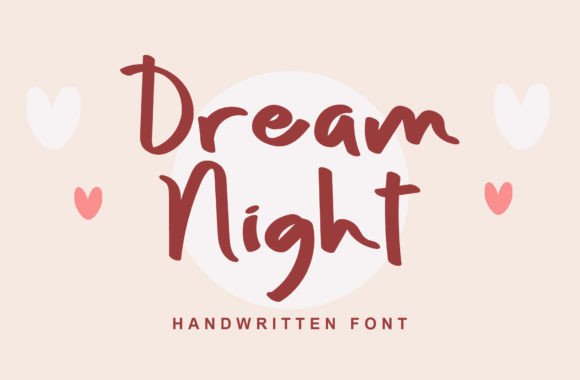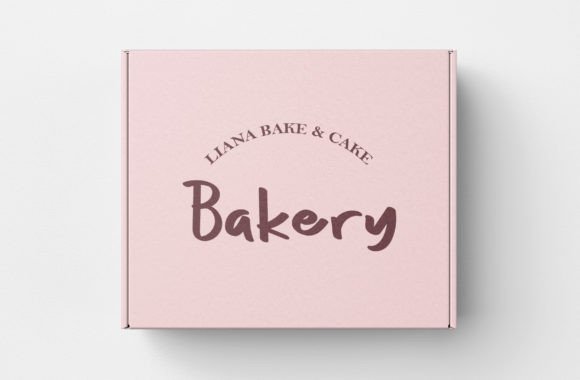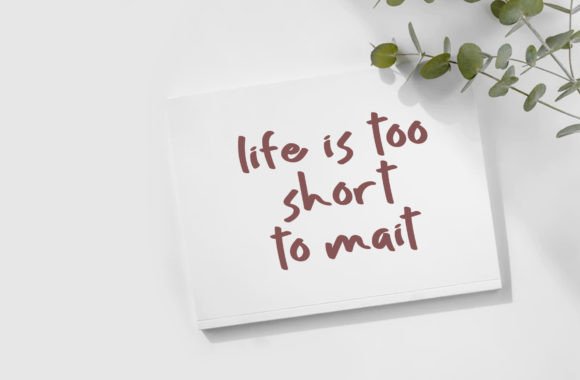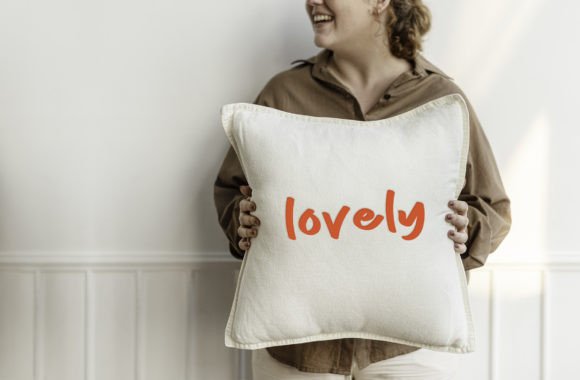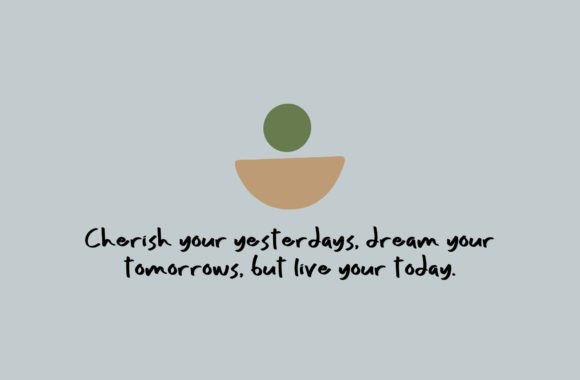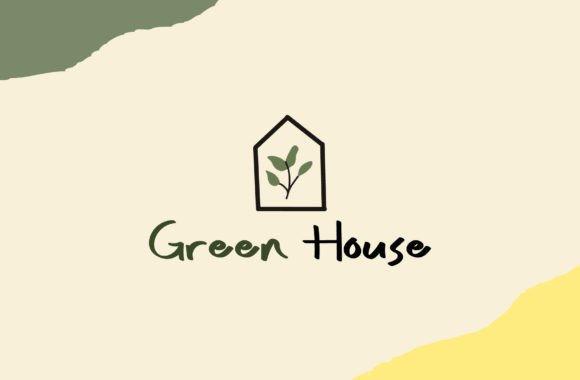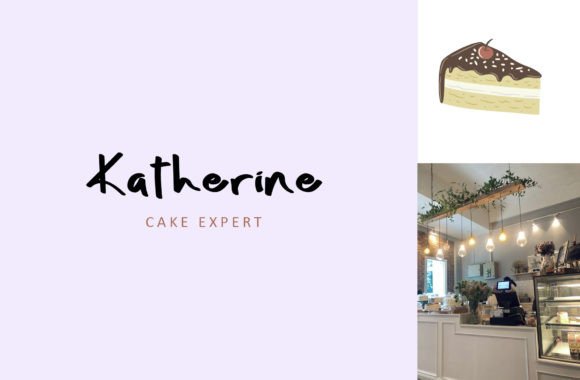
Dream Night Font
About Dream Night Font
Dream Night font offers a sleek and modern script style, designed with precision to make every letter shine beautifully. This elegant font stands out for its clean, flowing lines that bring sophistication and charm to any design. Whether you’re working on photography branding, wedding invitations, blog headers, or fashion-related projects, Dream Night provides a versatile and stylish option.
Crafted for Elegance and Versatility
Each letter in Dream Nightfont is carefully designed to balance modernity with elegance. The smooth curves and subtle flourishes make this font suitable for a broad range of creative applications. Its refined script style enhances the visual appeal of logos, quotes, posters, and apparel designs.
Ideal for Weddings and Invitations
Dream Night shines as a font choice for wedding invitations, stationery, and other romantic projects. Its graceful strokes add a personal and heartfelt touch that helps set the tone for special occasions. Whether for save-the-dates or thank-you cards, this font enhances the beauty of your messages.
Perfect for Branding and Social Media
Beyond formal events, Dream Nightfont works beautifully for branding and social media. It can elevate logos, watermarks, and blog headers with its contemporary and artistic feel. The font’s modern look helps businesses and creators convey professionalism while maintaining an approachable vibe.
Great for Fashion and Apparel Designs
Designers in the fashion and apparel industry will appreciate Dream Night’s elegant yet dynamic script. It adds sophistication to clothing tags, brand labels, and promotional materials. The font’s fluid style complements trendy and stylish branding efforts.
Overall, Dream Nightfont is a modern script typeface that offers elegance and versatility for a variety of design projects. From weddings to branding, its carefully crafted letters make any text look beautiful and captivating. Add Dream Night to your creative toolkit for a polished and refined aesthetic.